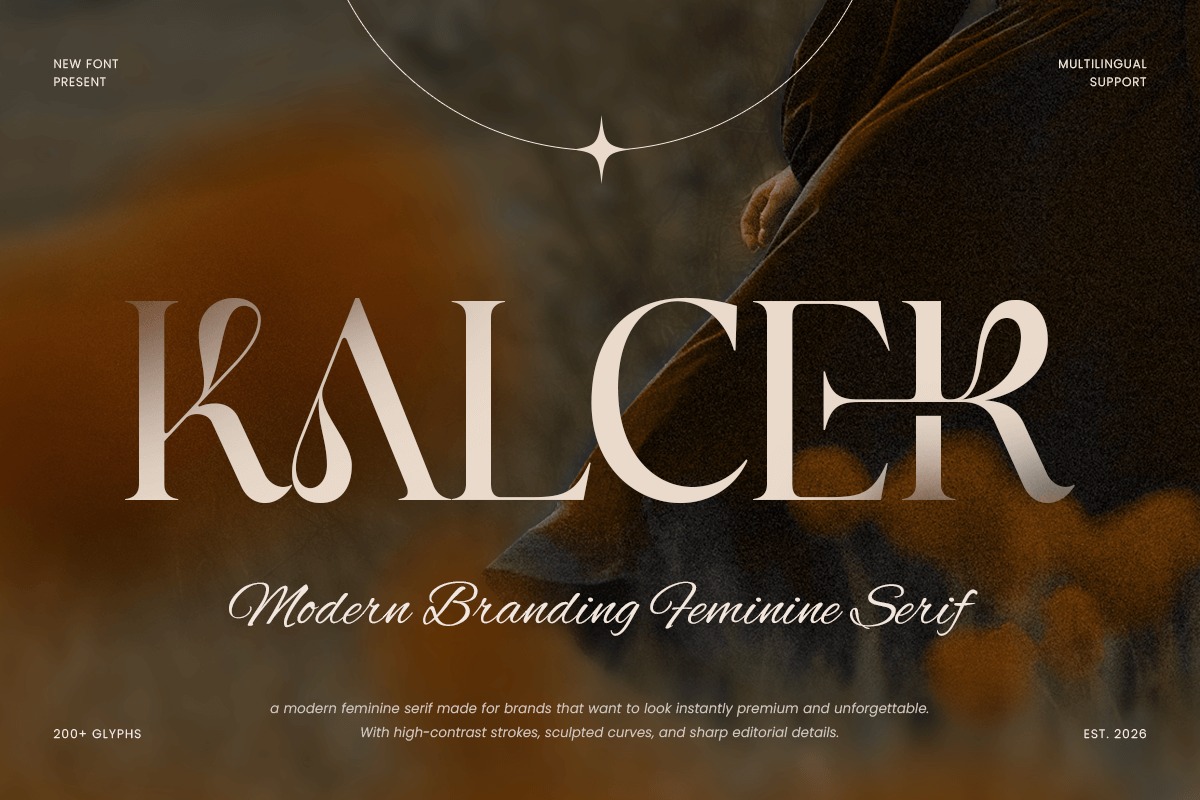
Kalcer – Modern Serif Font
Kalcer – Modern Serif Font is a premium-quality font developed to enhance your work with a polished, modern, and visually elevated look. KALCER is a modern branding feminine serif font designed to bring softness, elegance, and refined confidence to your typography. With graceful serif details, balanced proportions, and a polished modern rhythm, this typeface creates a premium visual tone that feels stylish, delicate and instantly brand-ready.
Built for feminine-focused branding, KALCER works beautifully across logos, wordmarks, beauty packaging, website headers, editorial layouts, invitations, labels, social media graphics, presentations, and upscale marketing visuals. Its elegant serif structure keeps every composition clean and readable while adding a warm, luxurious personality across both digital and print design.
Whether you’re building a beauty brand, creating boutique packaging, designing romantic stationery, or crafting a fashion-forward editorial concept, KALCER provides a feminine serif foundation that makes your typography feel sophisticated, graceful, and unforgettable.